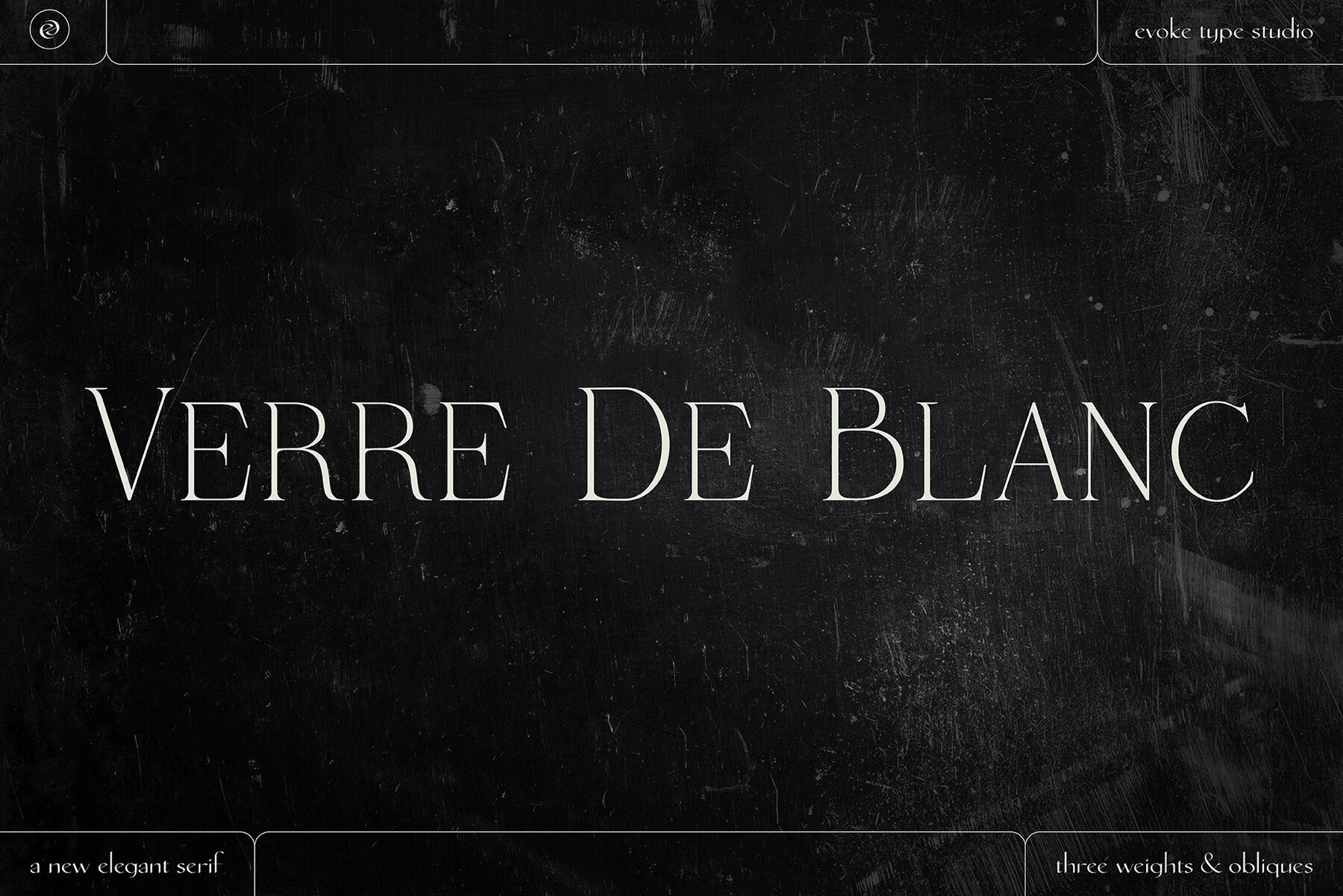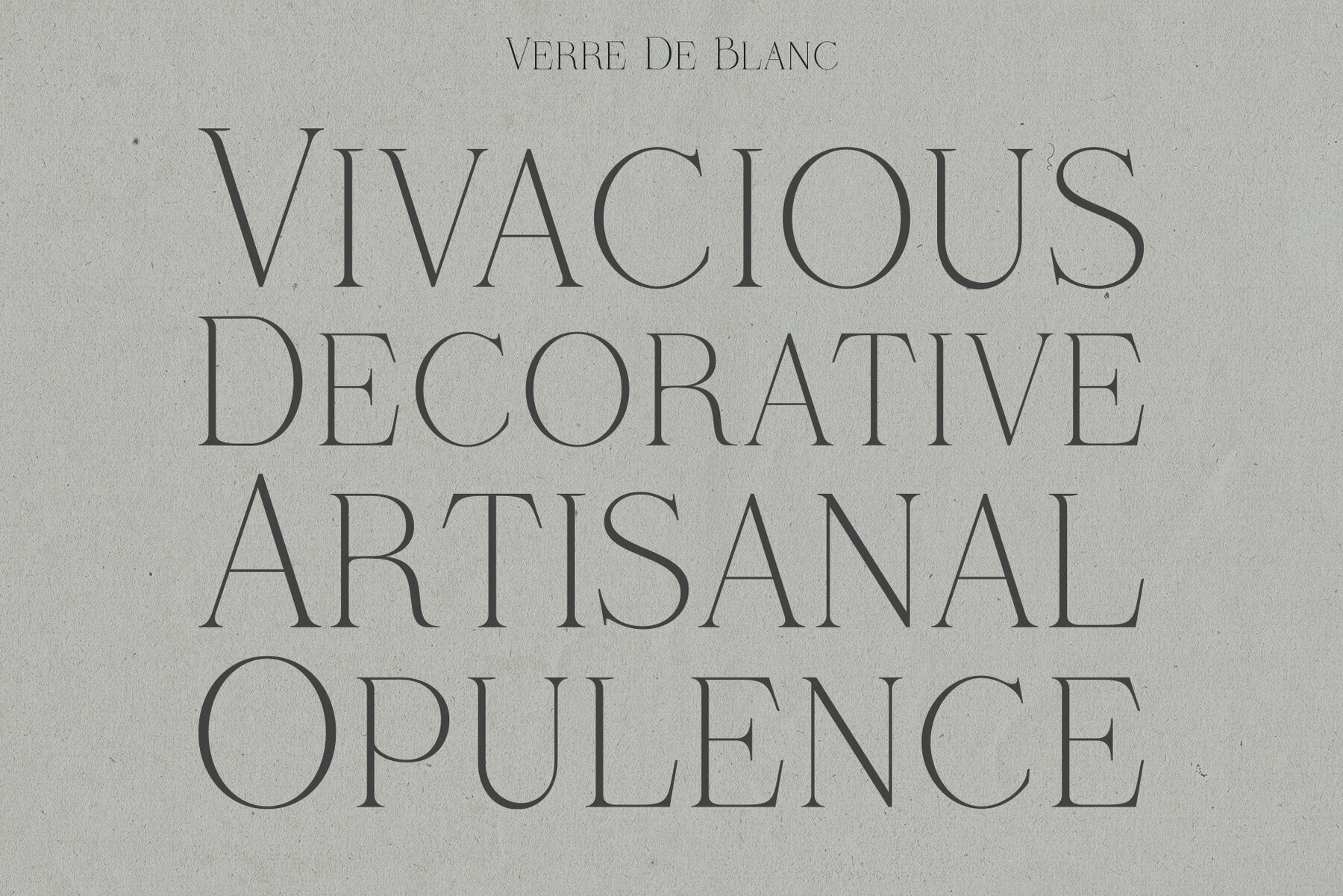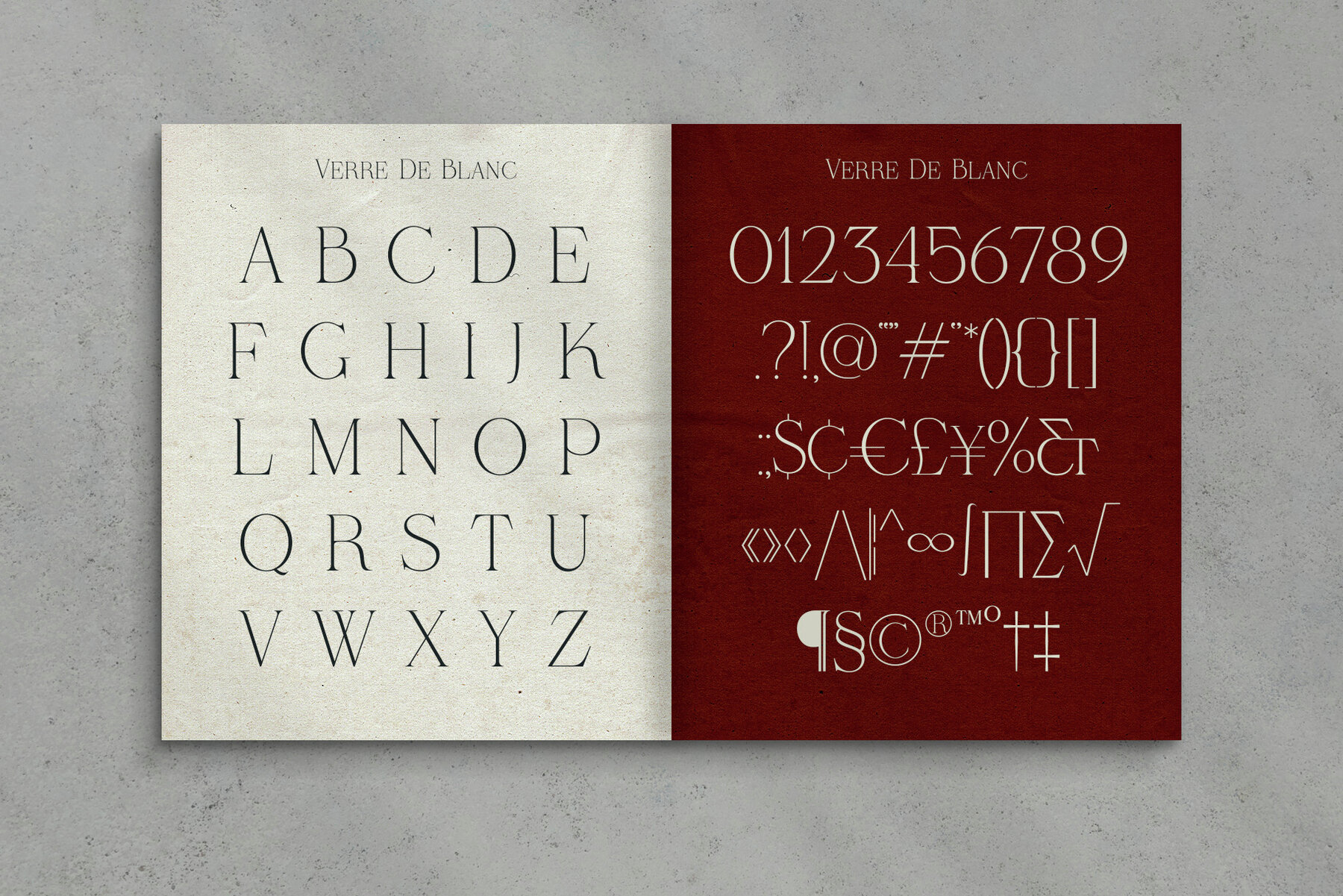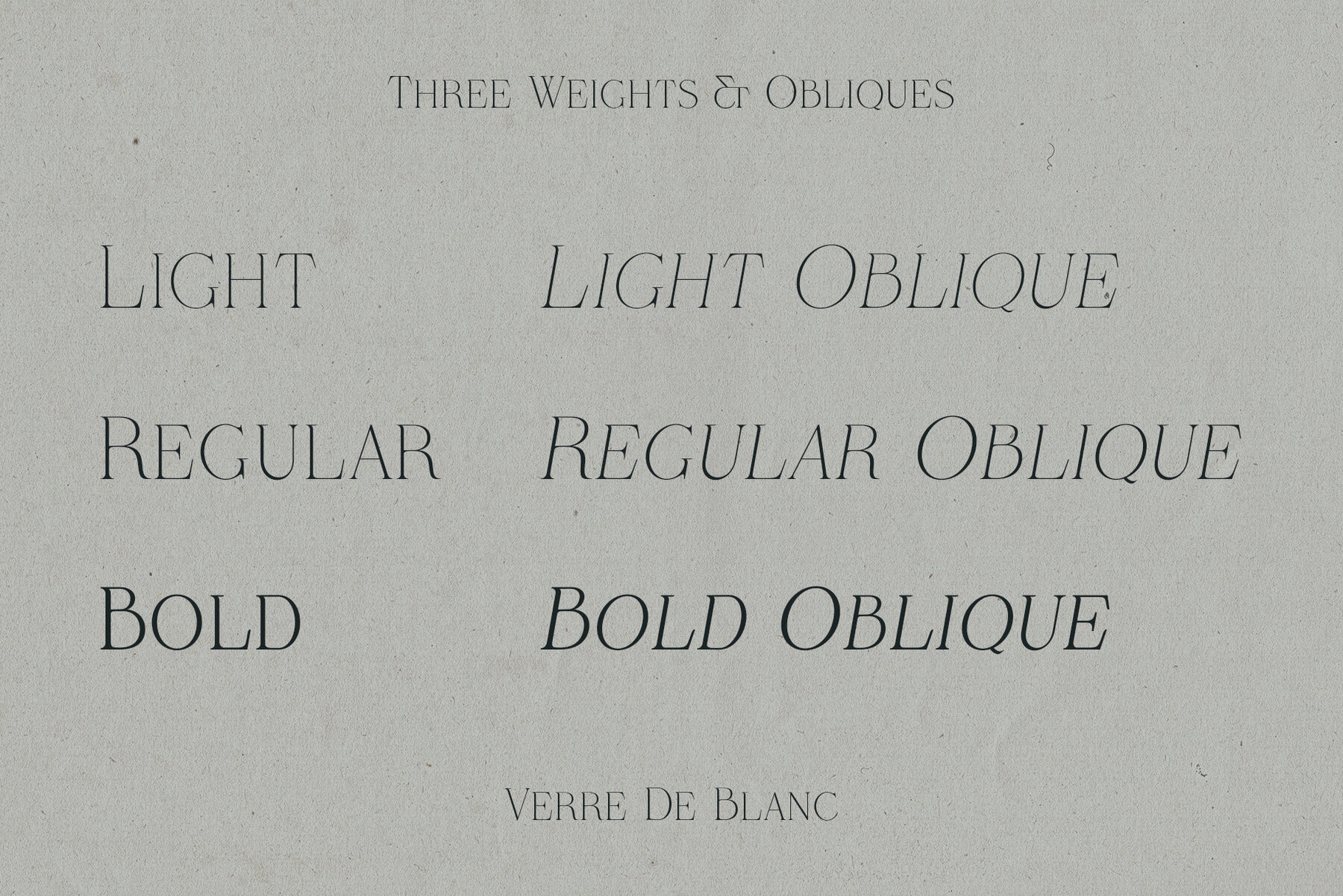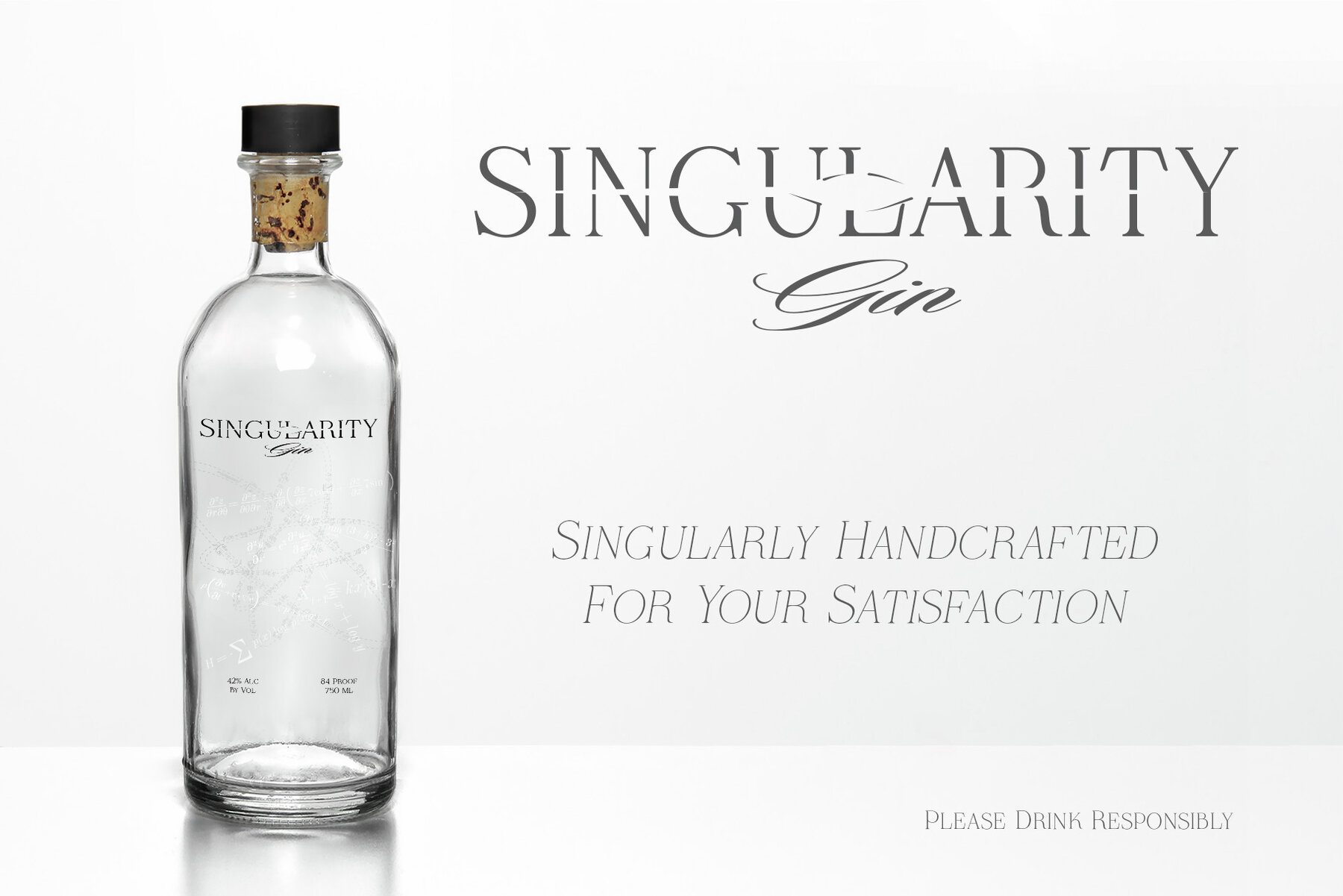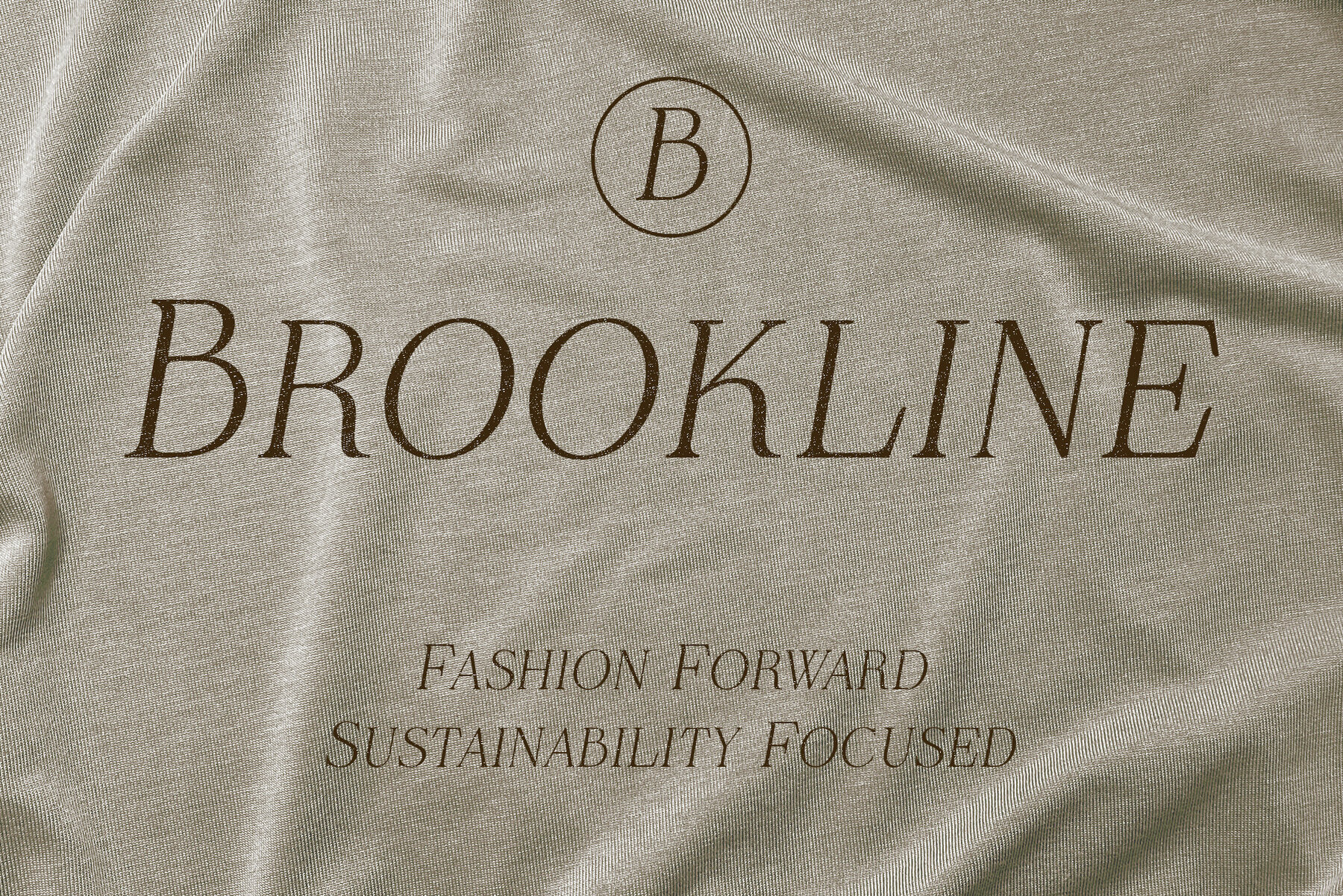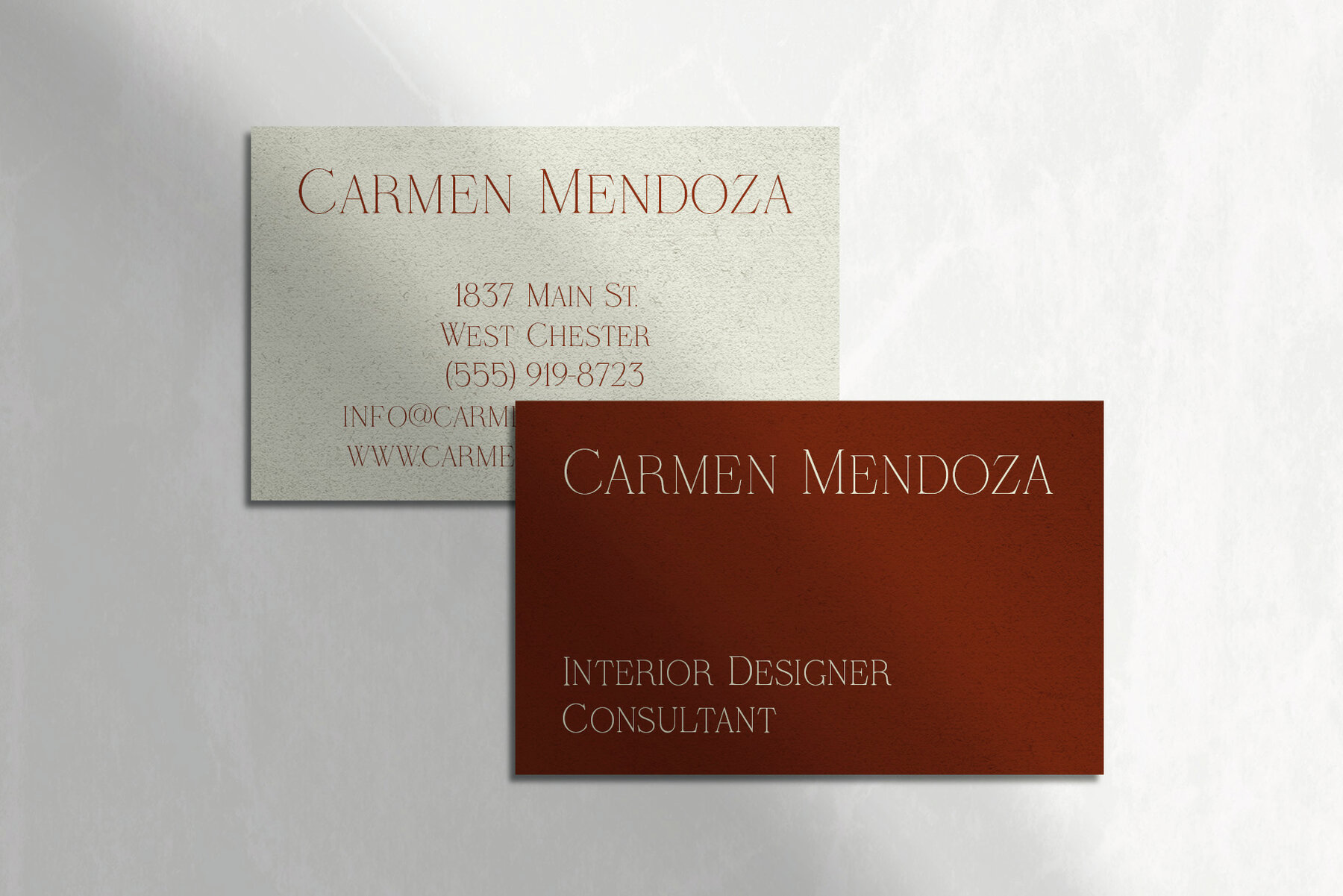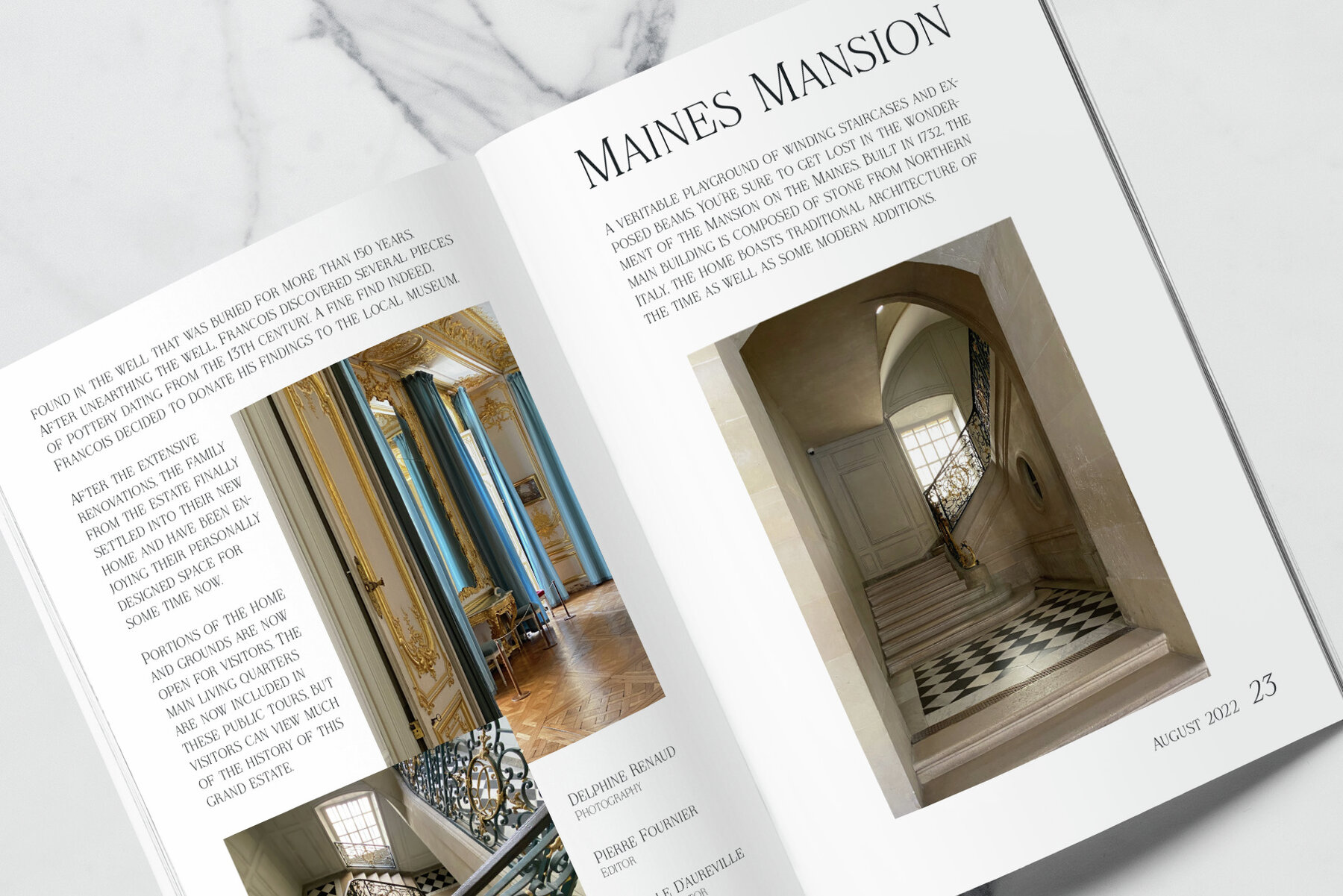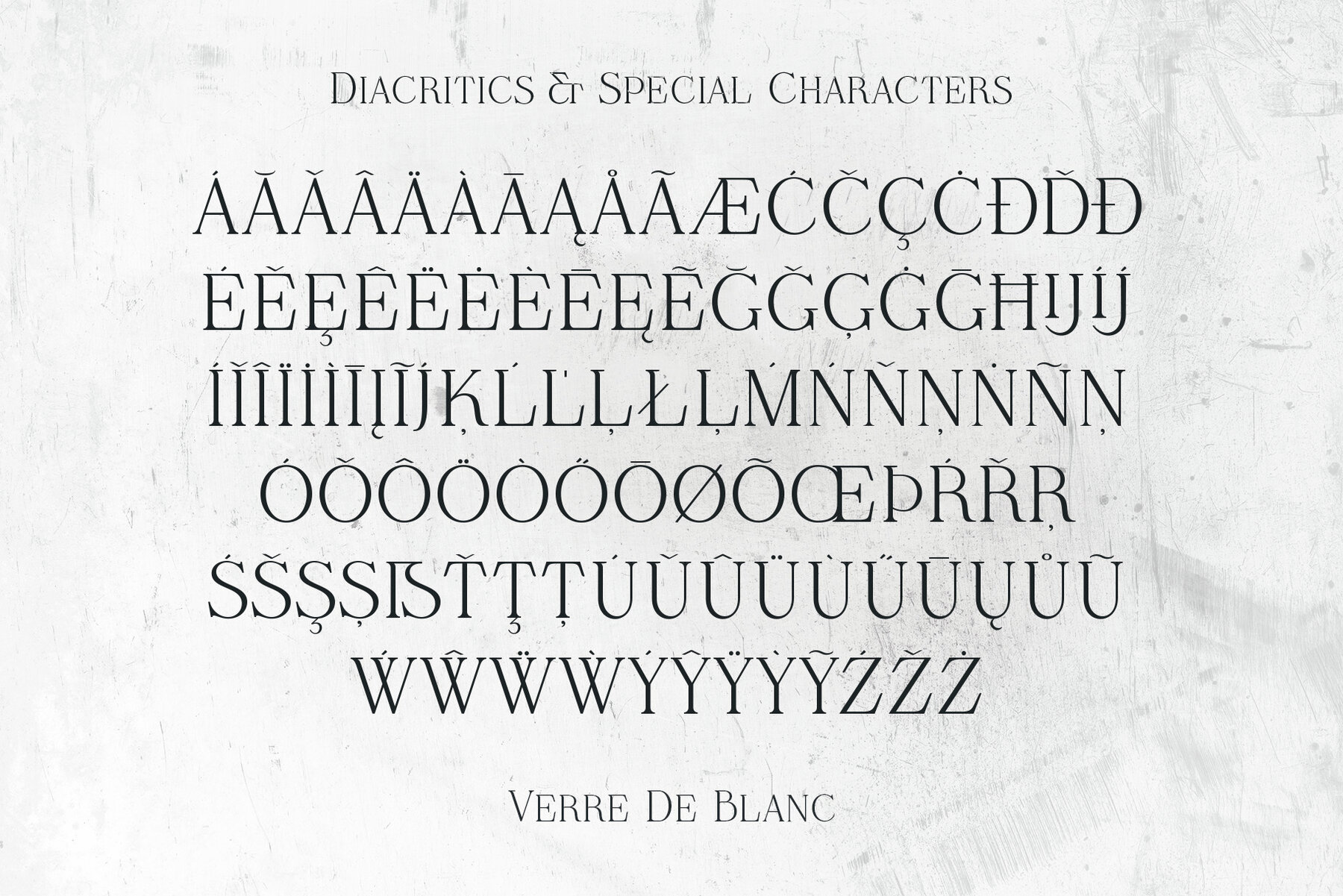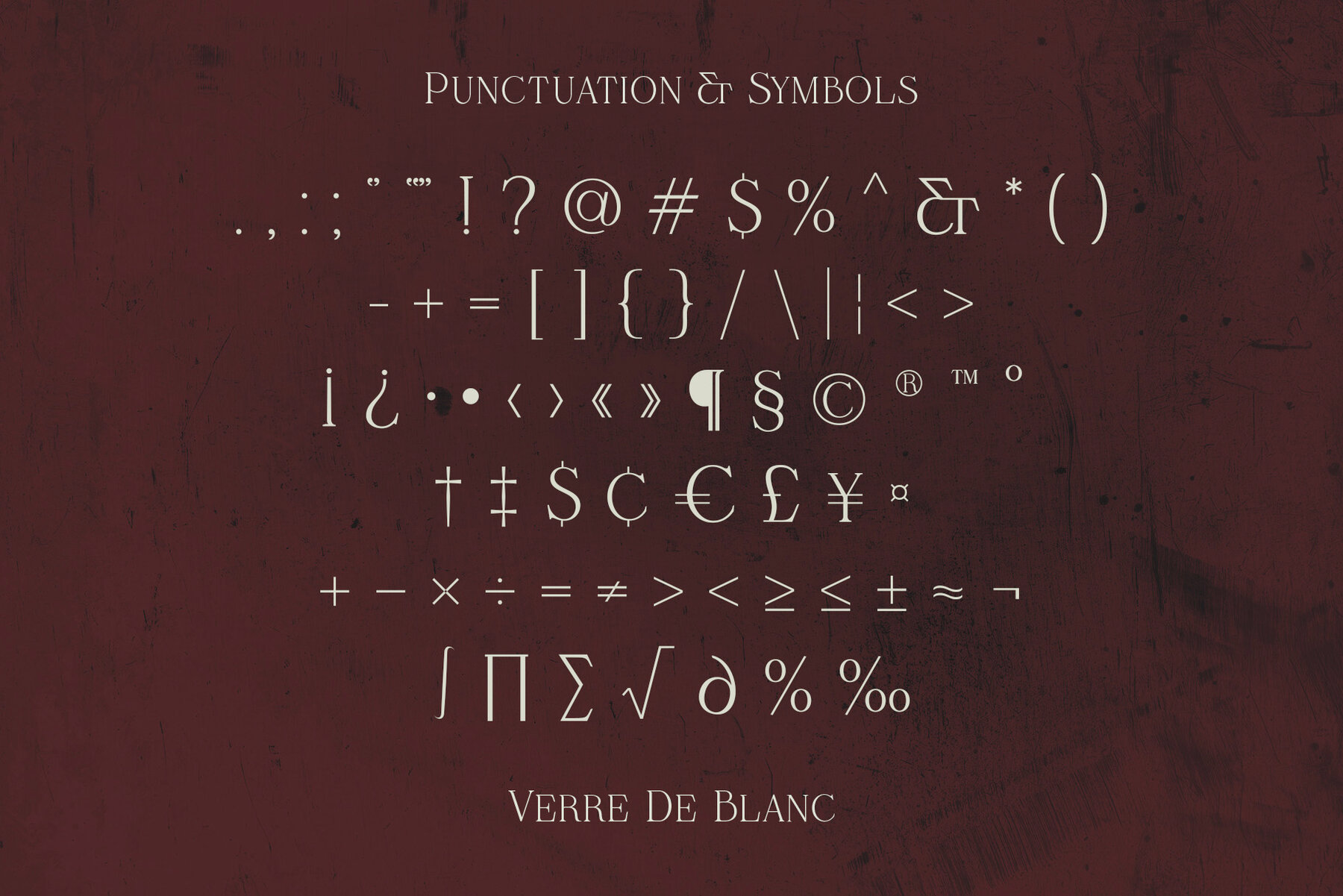
Verre De Blanc Font
Verre De Blanc is a sophisticated typeface with a subtle elegance. This typeface is perfect when you’re after that refined and polished look. With three weights and oblique versions of each, Verre De Blanc is a versatile font for your branding and advertisement needs. Language support includes Western and Central European languages.